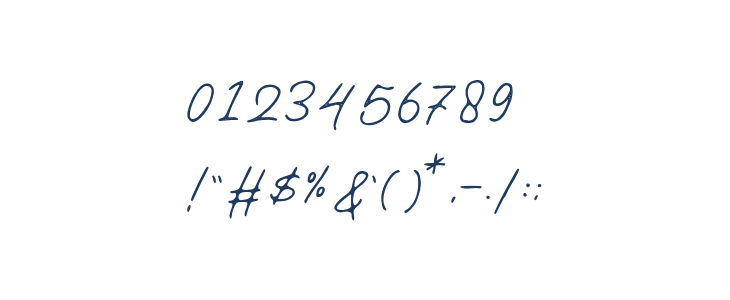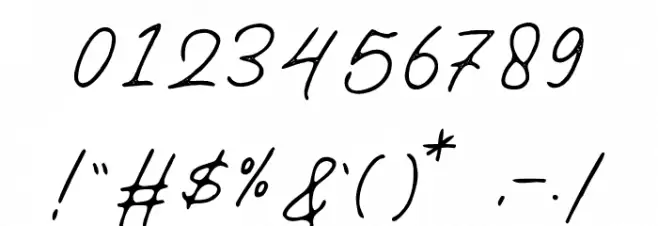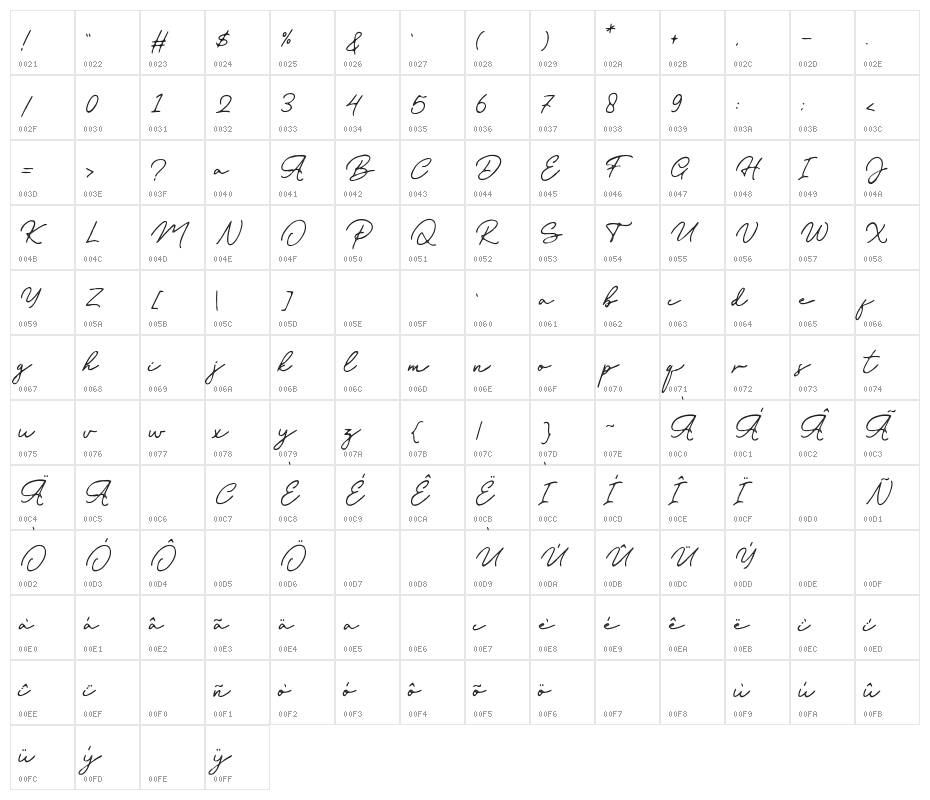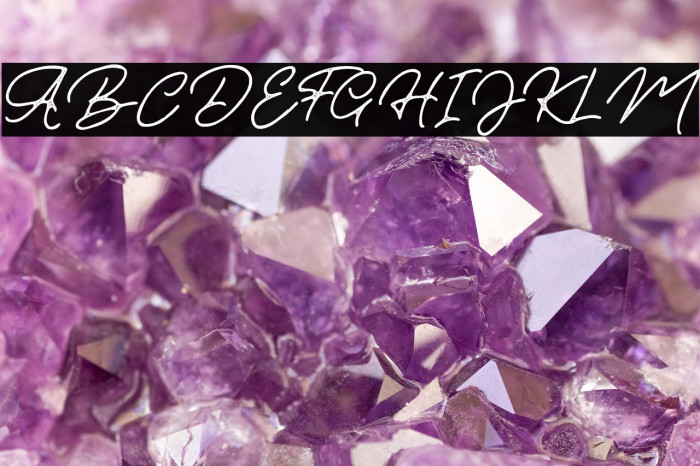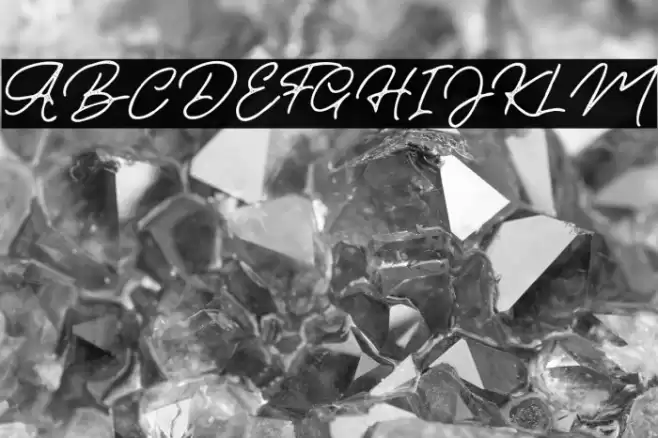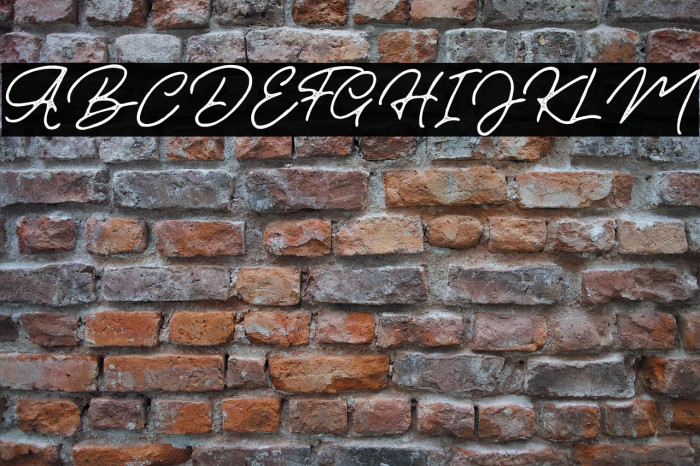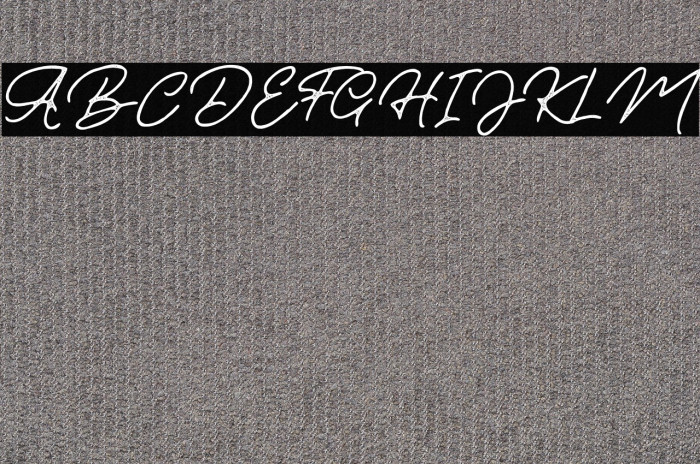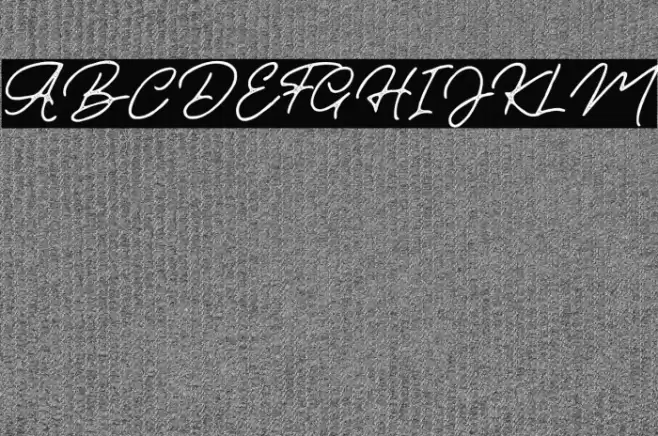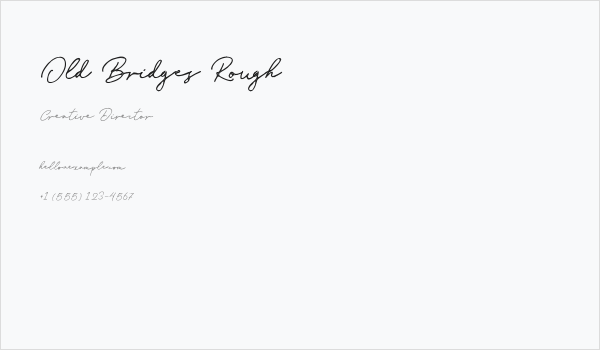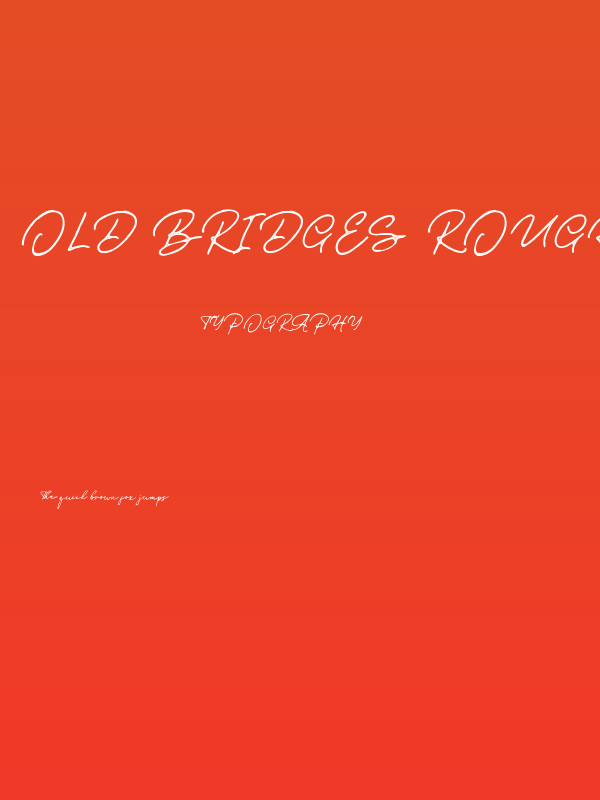
Old Bridges Rough Font
Old Bridges Rough Description
This font features a distinctive cursive style with a hand-drawn appearance, characterized by fluid, interconnected strokes that mimic natural handwriting. The uppercase letters are elegantly elongated, while the lowercase letters maintain a consistent flow, enhancing readability. Numbers and special characters are crafted with the same attention to detail, ensuring a cohesive look across all elements. The overall aesthetic is both artistic and approachable, making it suitable for projects that require a personal touch. Its rough edges add a vintage charm, reminiscent of handwritten notes or letters.
| Use Case | Logos, Invitations, Personal Correspondence |
| Proposed Projects | Ideal for wedding invitations, personal letters, greeting cards, and branding that seeks a handcrafted feel. |